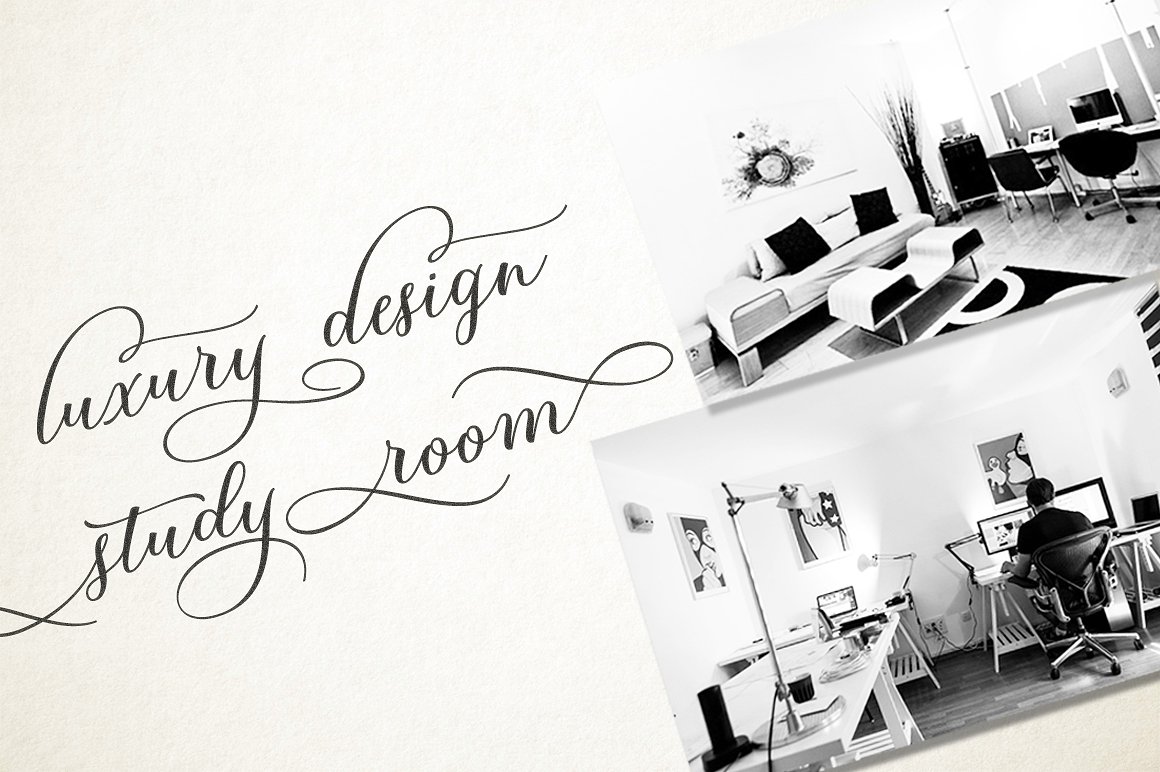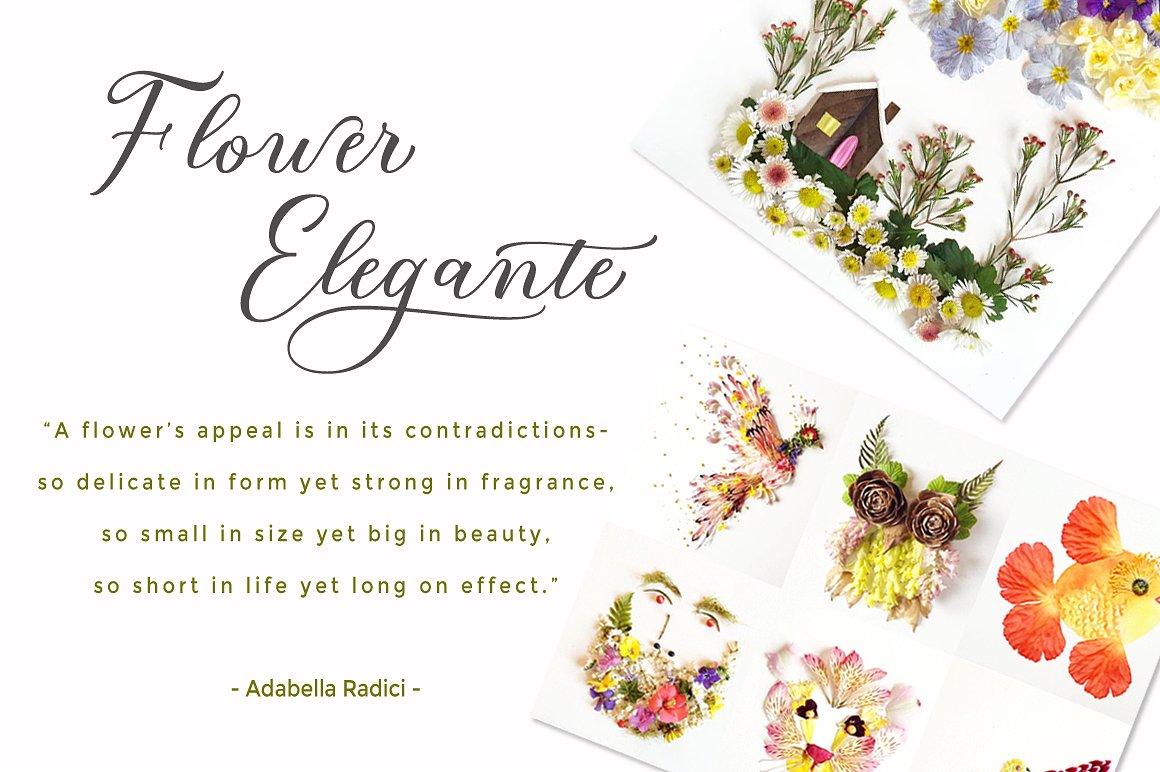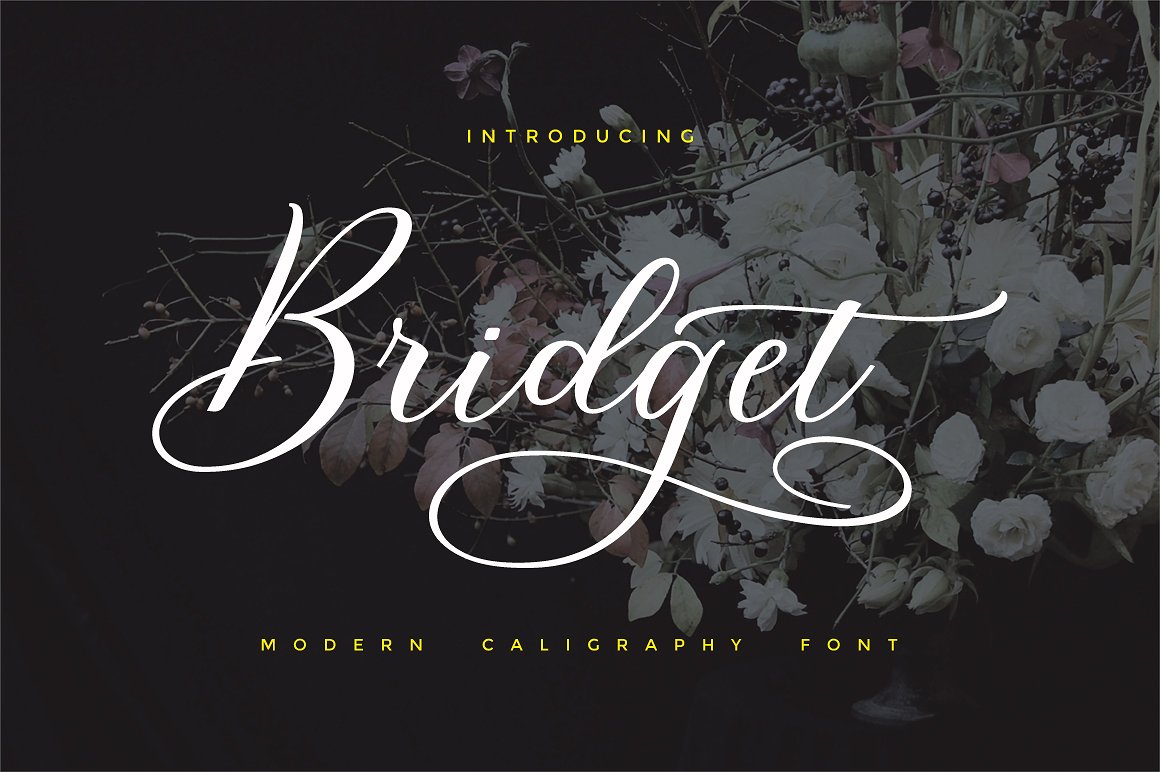
Bridget Script Font
A modern calligraphy font, Introducing Bridget Font. Bridget a new fresh & modern script with a calligraphy style, decorative characters and a dancing baseline! So beautiful on invitation like greeting cards, branding materials, business cards, quotes, posters, and more!